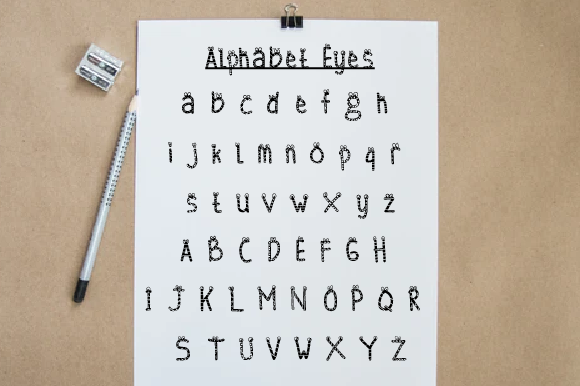
Unleash Your Creativity with Alphabet Eyes Font
Introducing the Alphabet Eyes Font, a unique and captivating decorative font that’s sure to breathe life into your designs. This versatile font is perfect for adding a touch of whimsy and personality to your work. Whether you’re designing a children’s book, a social media campaign, or a logo for a new business, the Alphabet Eyes Font is a valuable addition to your creative arsenal.
Alphabet Eyes Font Key Features
- Unique Characteristics: The Alphabet Eyes Font features a playful, whimsical design with intricate details and textures, making it perfect for children’s books, educational materials, and other projects that require a fun and engaging tone.
- Character Set: The font includes a wide range of characters, including uppercase and lowercase letters, numbers, punctuation marks, and special characters, making it suitable for various types of content.
Alphabet Eyes Font Review
I recently had the chance to work with the Alphabet Eyes Font, and I must say it’s a unique and intriguing choice. Here’s my honest take on its strengths and weaknesses.
- Unconventional yet visually appealing design: Alphabet Eyes Font is definitely one of a kind. Its quirky, whimsical feel can add a touch of personality to any design.
- Good legibility: Despite its unconventional design, the font is surprisingly easy to read, making it suitable for body text or headlines.
- Great for creative projects: Alphabet Eyes Font is perfect for projects that require a touch of whimsy, such as children’s books, advertisements, or social media graphics.
- Limited versatility: Due to its unique design, Alphabet Eyes Font might not be the best choice for projects that require a more professional or corporate feel.
- May not be suitable for large text: The font’s unconventional design can make it difficult to read in larger sizes, which may limit its use for headings or titles.
Overall, I think Alphabet Eyes Font is a great choice for designers who want to add a touch of personality to their projects. While it may have some limitations, its unique design and good legibility make it a great option for creative projects. Just be mindful of its limitations and use it accordingly.
Tips for Getting the Most Out of Alphabet Eyes Font
Use Alphabet Eyes Font for creating playful, whimsical designs and titles.
Combine it with bold colors and fun graphics to create eye-catching visuals.
Experiment with different font sizes and styles to add depth and interest to your design.
Alphabet Eyes Font is ideal for:
Children’s books and educational materials.
Party invitations and event